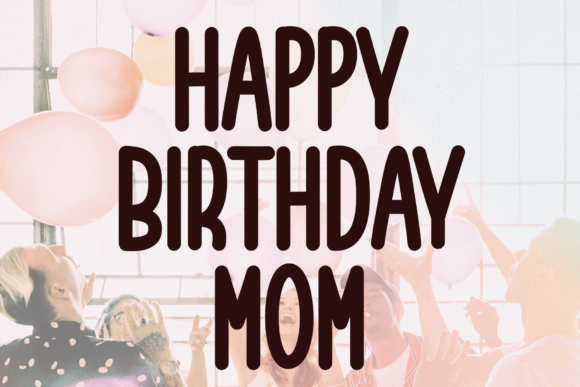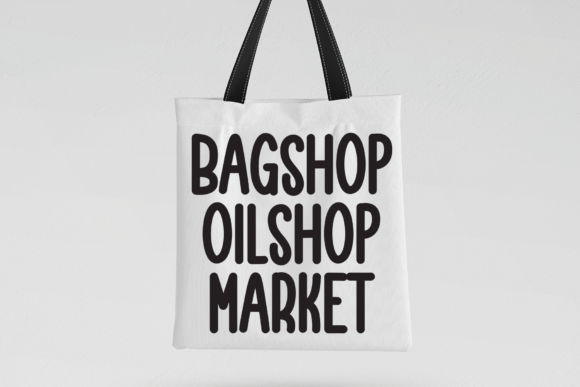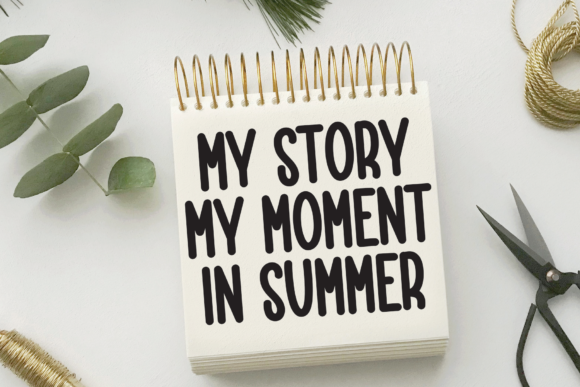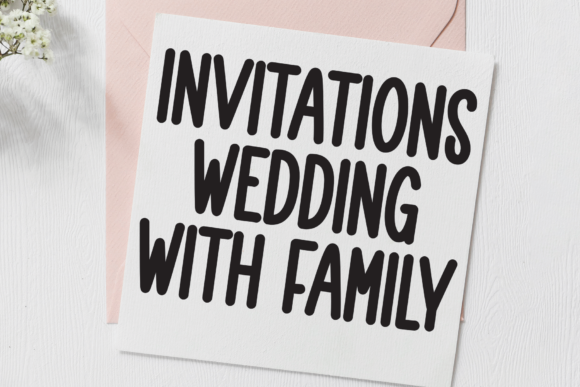
Happy Birthday Mom Font
About the Happy Birthday Mom Font
The wait is over! The incredible Happy Birthday Mom Font is now available for your design toolkit. Happy Birthday Mom is a simple and charming sans serif font. Its latest style letters are perfect for wall displays, wedding invitations, social media post logos, advertisements, product packaging, product designs, labels, photography, watermarks, invitations, stationery, and any project that requires a modern look.
Happy Birthday Mom’s friendly, informal style makes it ideal for projects requiring a warm and approachable aesthetic. It excels in headlines, short-form text on packaging, and social media graphics. However, its limited character set and relatively informal style make it unsuitable for body text or lengthy paragraphs. Avoid using it in UI contexts where legibility is paramount.
Consider pairing Happy Birthday Mom with a classic serif like Garamond for a sophisticated contrast, or a geometric sans-serif like Futura for a modern, balanced feel. A playful script font could also complement its charm, depending on the project’s needs. The key is to choose a contrasting but harmonious partner that doesn’t visually compete with its friendly personality.
Its overall personality is best described as cheerful and optimistic, making it suitable for brands targeting a youthful or family-oriented audience. Projects related to celebrations, crafting, or children’s products would be excellent applications.
Happy Birthday Mom Font Usage Examples
Happy Birthday Mom Font Example